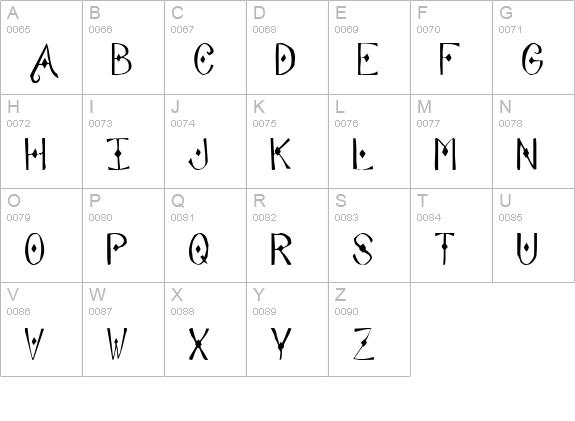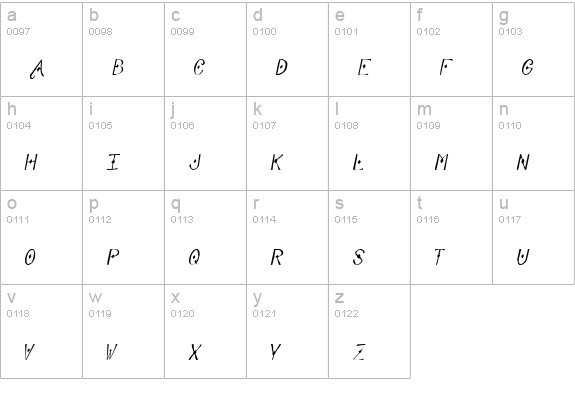
Abode Font Details
Abode font is a stylish and versatile typeface that exudes sophistication and elegance. With its clean lines and modern aesthetic, Abode is perfect for a wide range of design projects, from branding to editorial layouts. Its timeless appeal makes it a go-to choice for designers seeking a font that effortlessly combines classic elegance with contemporary flair. What sets Abode font apart is not just its impeccable design, but also the fact that it is available for free download at FontsMarket.com. Yes, that's right – you can access this stunning typeface at no cost, making it an invaluable addition to your font library. Whether you're working on a personal project or a professional assignment, Abode font offers endless possibilities for creative expression. So why wait? Discover the beauty and versatility of Abode font today by downloading it for free at FontsMarket.com. Elevate your designs with this exquisite typeface and make a lasting impression with every project you undertake.